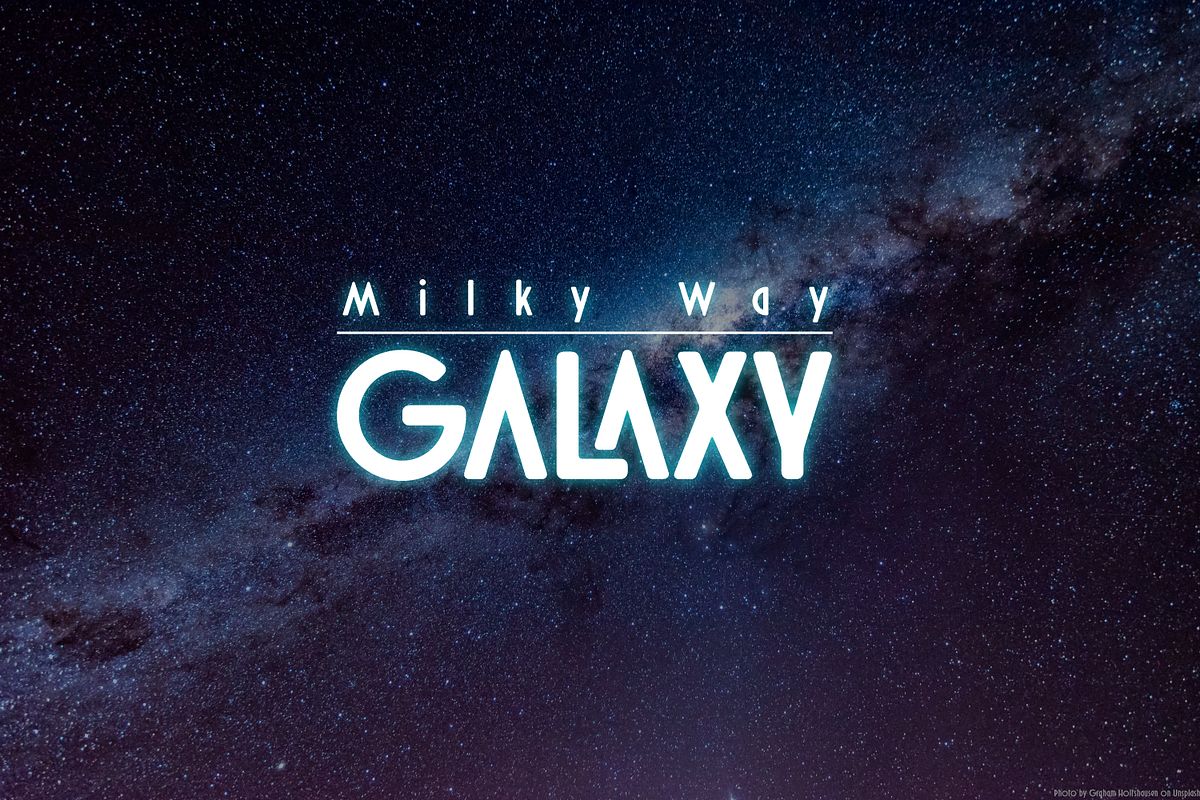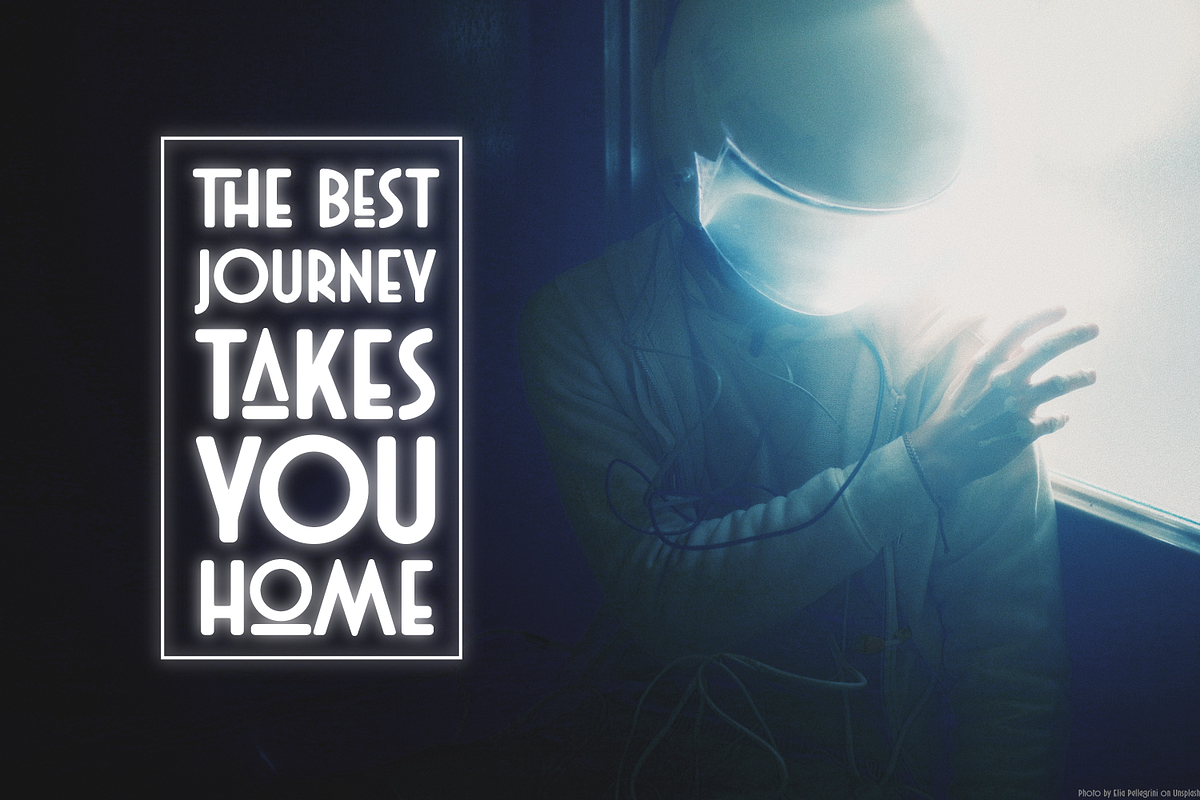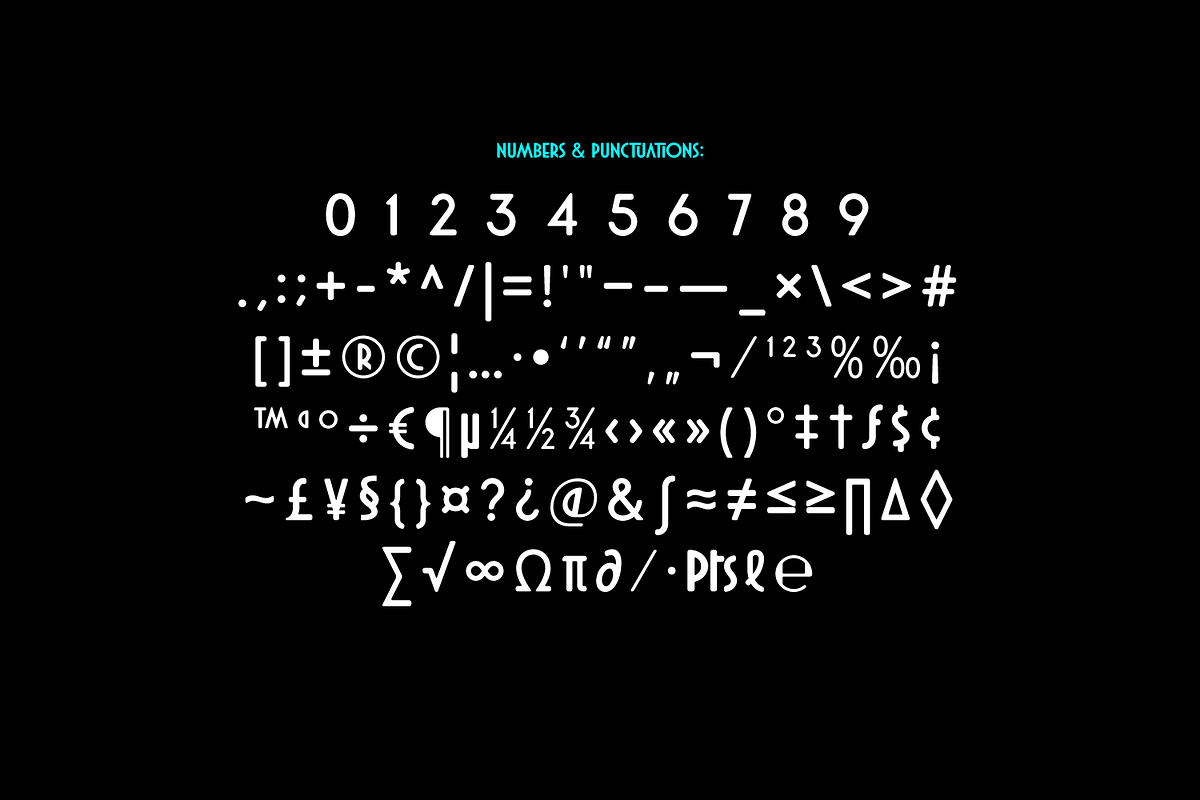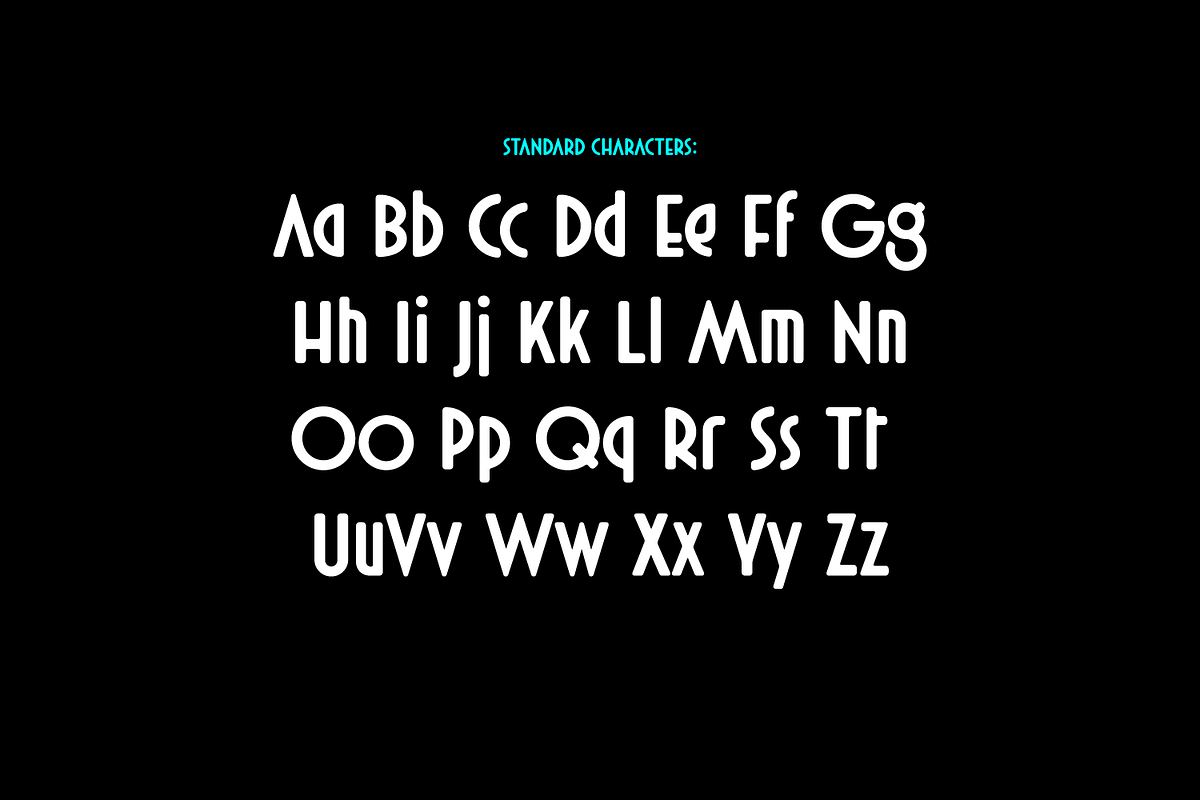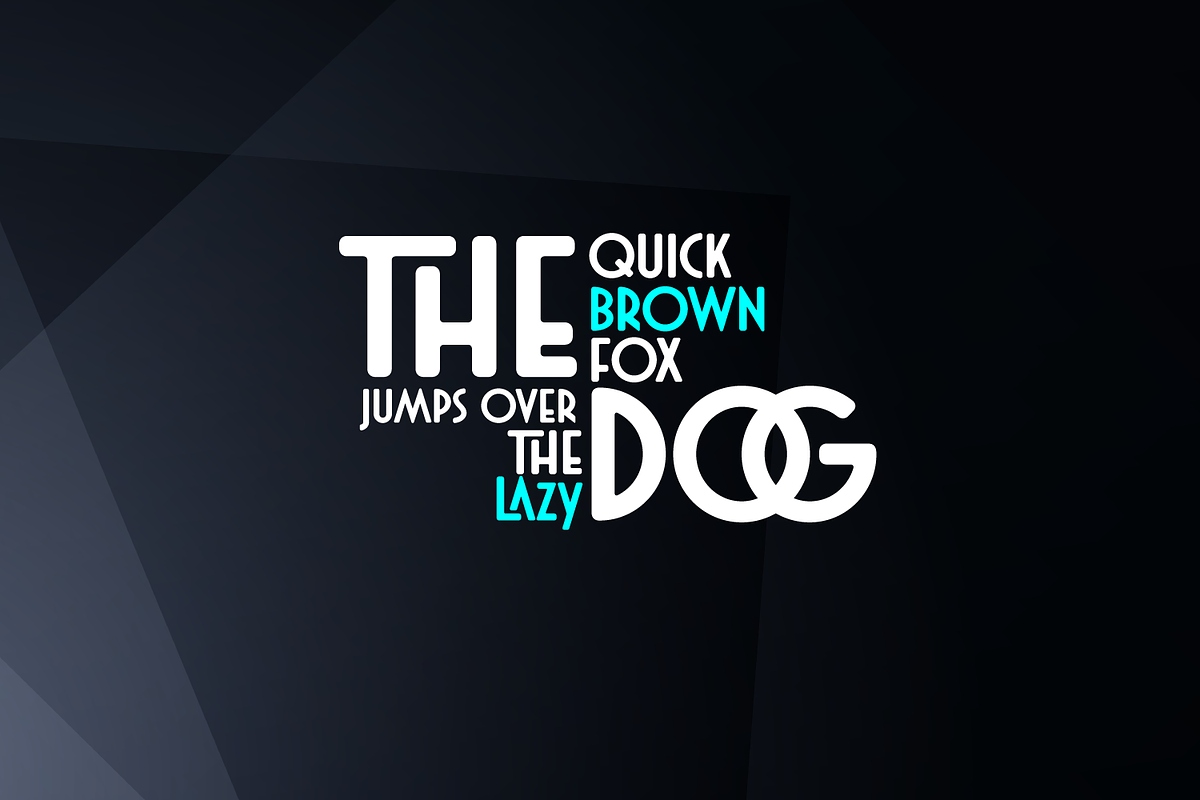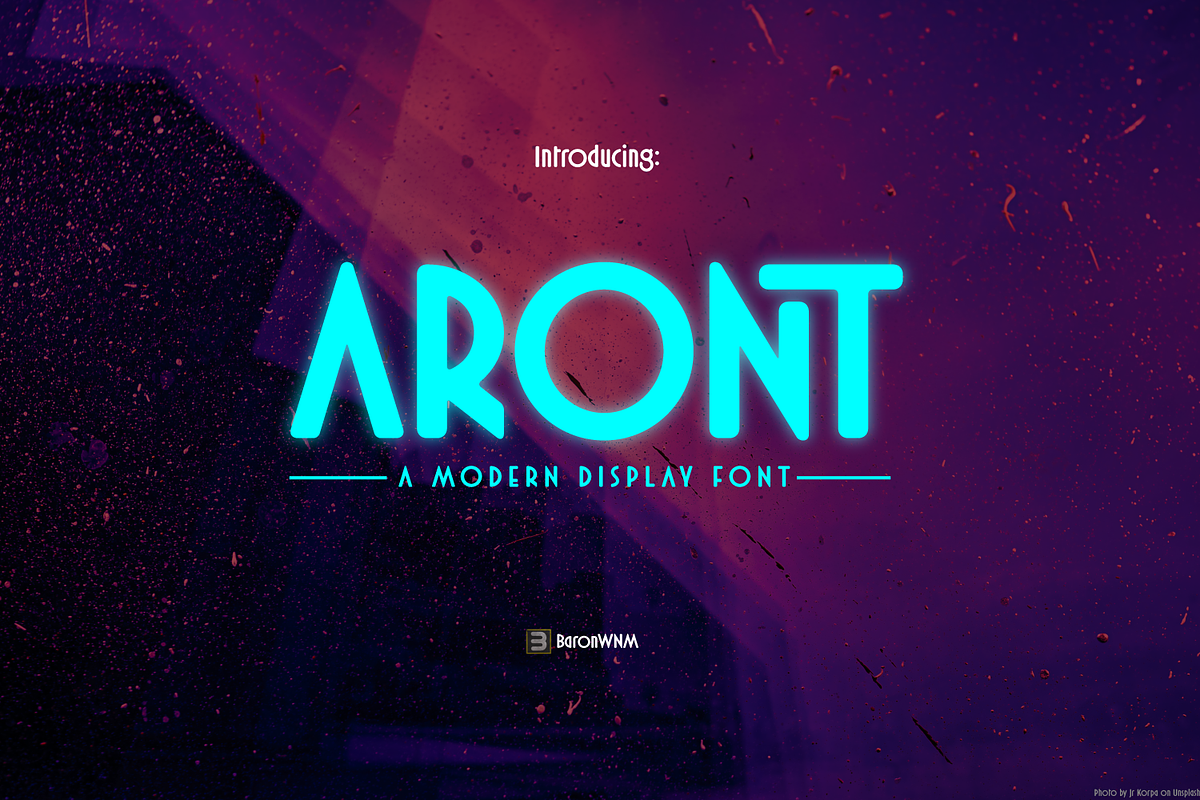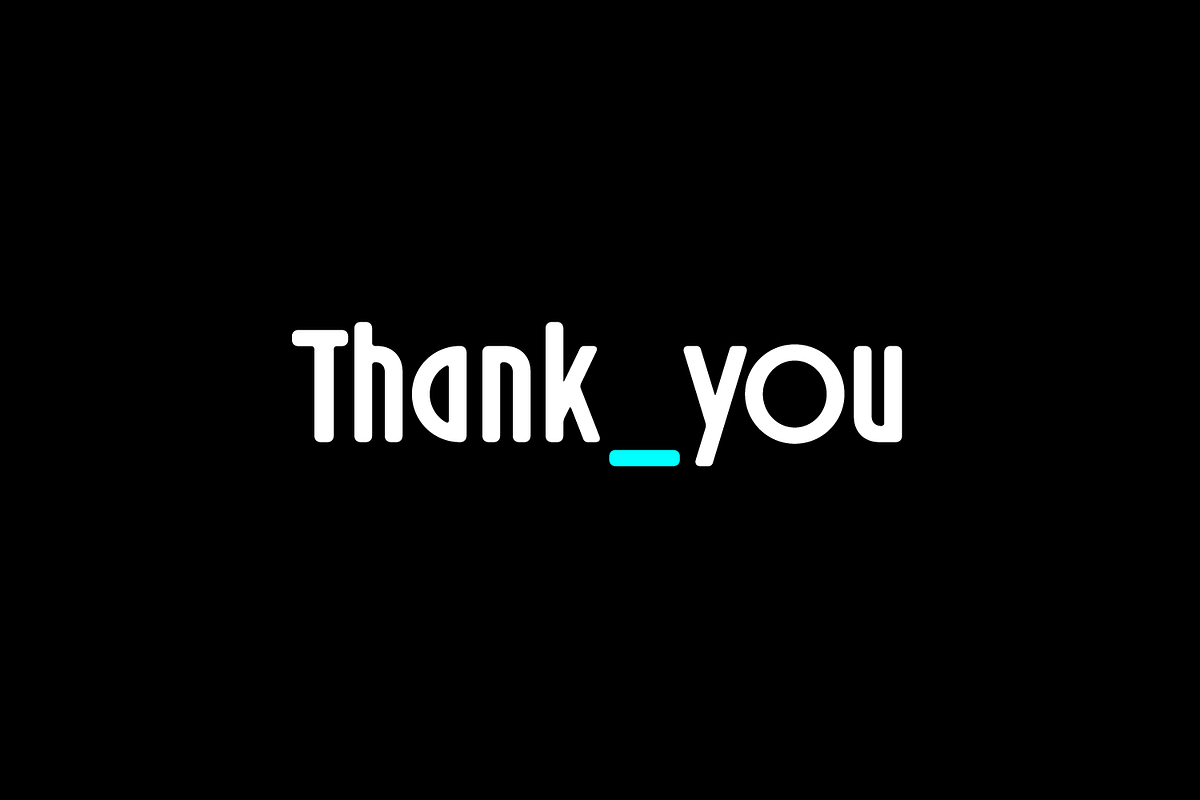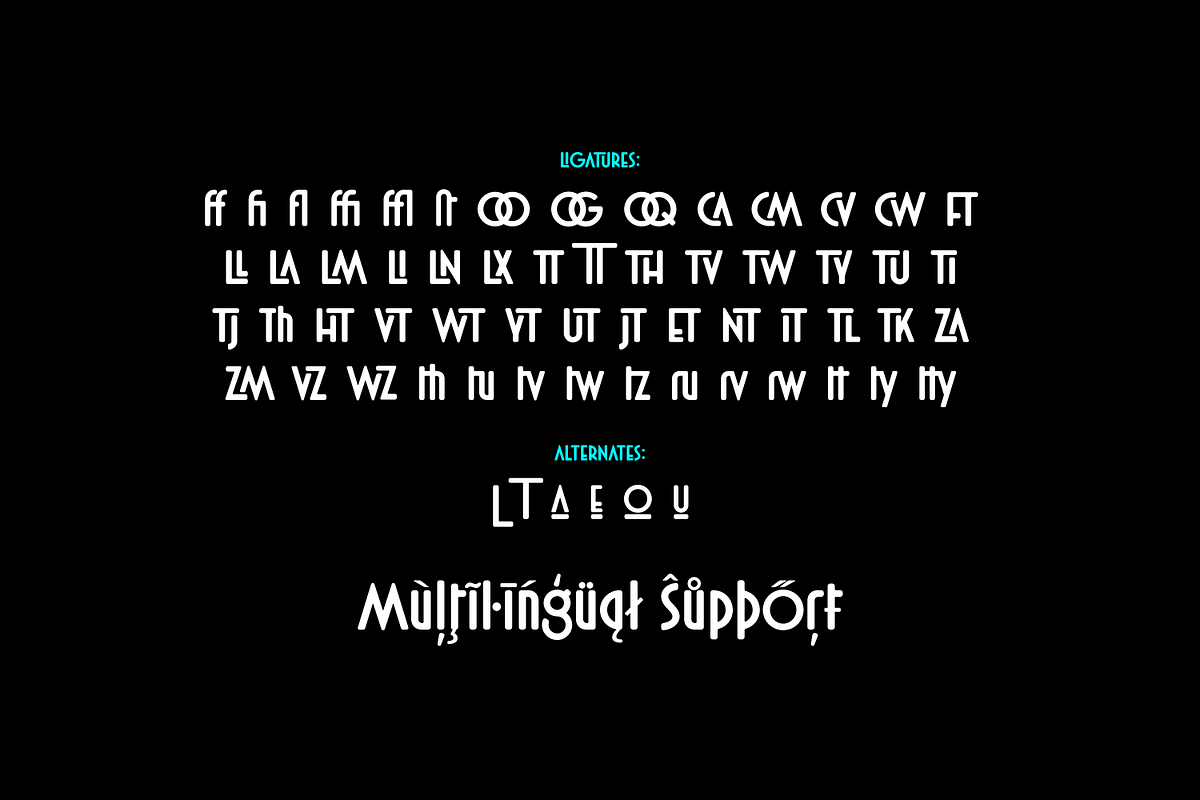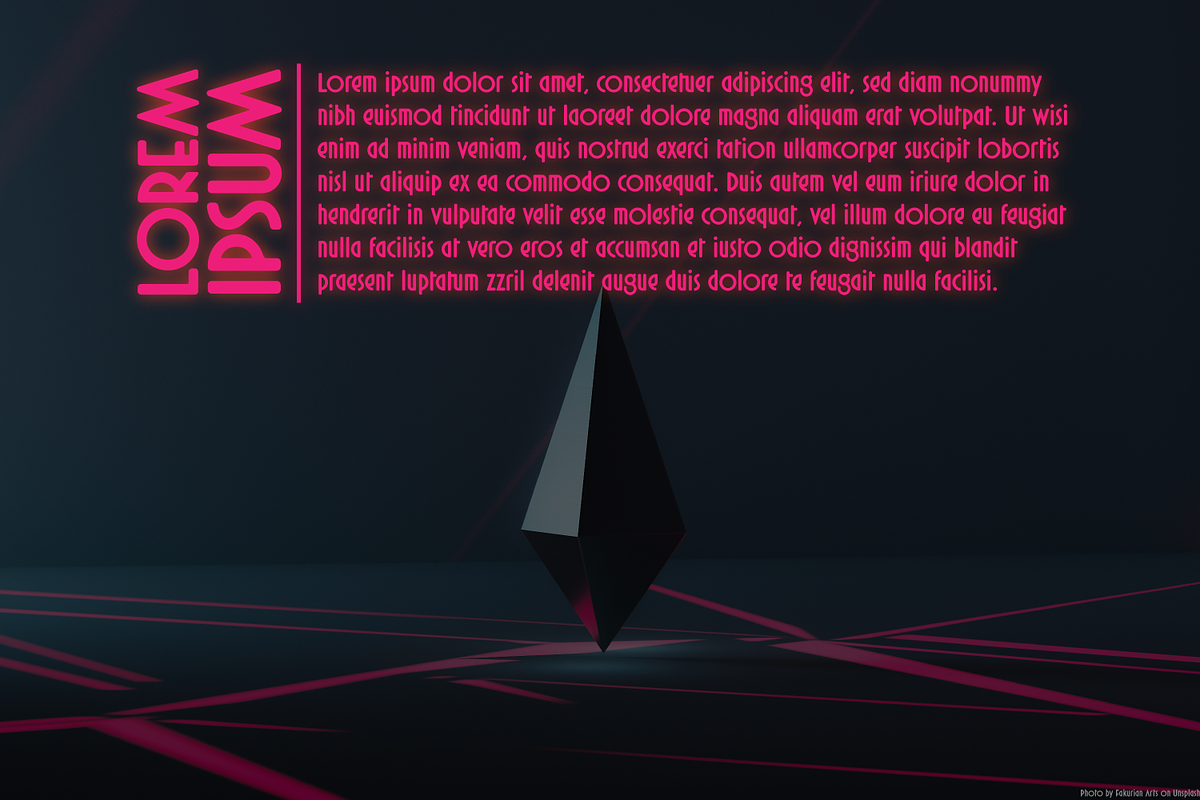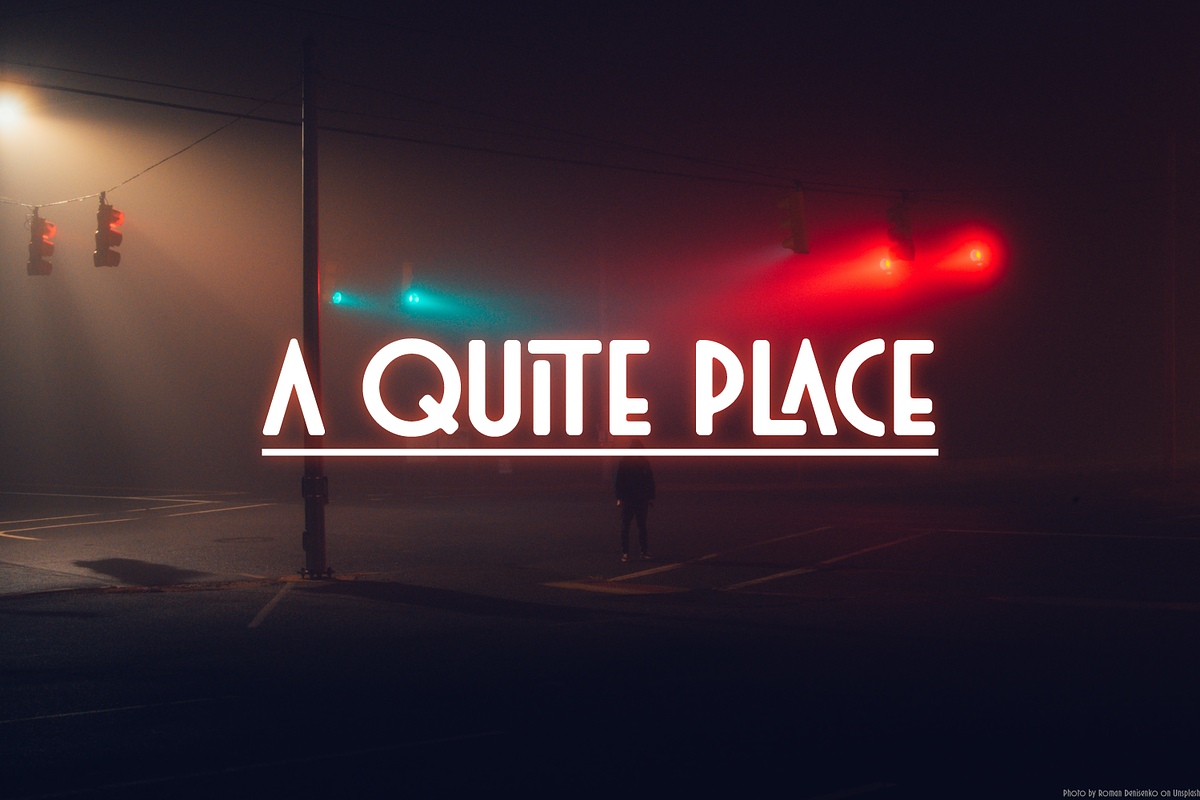
Aront
Aront is a bold, simple and techno looking display font. This font is PUA encoded which means you can access all of the glyphs and swashes with ease! Aront is ideal for writing web designs, business cards, or pretty much anything else that requires a unique touch.